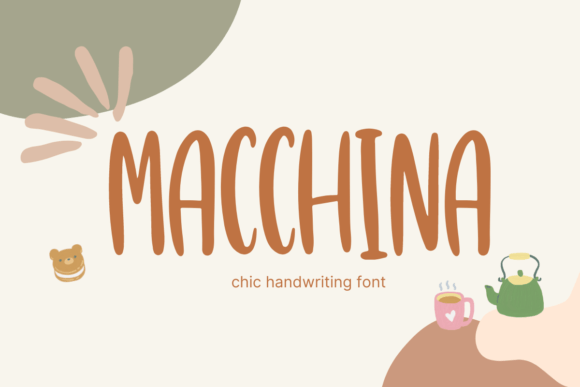
Immerse yourself in the world of Macchina, a captivating script font that oozes charm and authenticity. Conceived from the harmonious union of a brush pen and pencil, Macchina dances across your screen with a grace and vitality that is simply breathtaking. Its strokes, like the strokes of a maestro's brush, possess an organic, hand-drawn quality that will add a touch of warmth and personality to your creative endeavors.
With Macchina as your trusted companion, you'll unlock a world of design possibilities. Its versatility knows no bounds, whether you're crafting elegant branding, eye-catching headings, or heartfelt wedding invitations. Unleash your creativity and watch as Macchina transforms your words into works of art.
Experience the allure of Macchina in your signature designs, adding a touch of sophistication and uniqueness that will leave a lasting impression. Elevate your logos, labels, and packaging with the flair and panache that only Macchina can bring.
But Macchina's brilliance extends beyond the digital realm. It's the perfect font for vinyl lettering, bringing your creative visions to life in tangible form. Imagine your walls adorned with inspiring quotes, your car windows declaring your passions, or your personalized gifts adorned with heartfelt messages, all rendered in the captivating strokes of Macchina.
With Macchina at your fingertips, you'll discover a font that's not just a tool, but an extension of your creativity. Its organic charm will captivate your audience, leaving them in awe of your designs. Step into the world of Macchina and let your imagination soar!